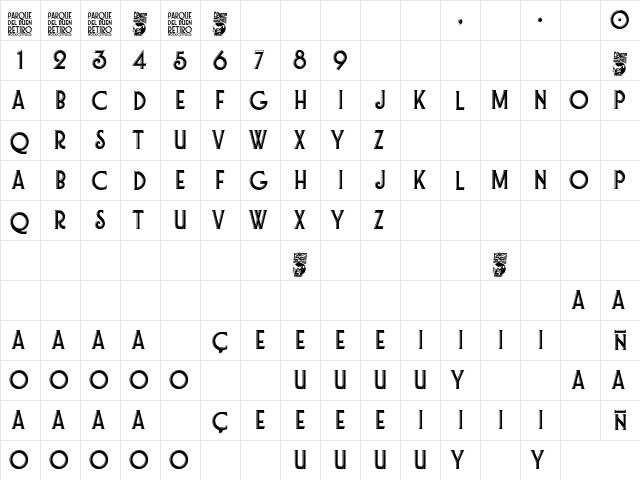
Parque del Buen Retiro Regular
| Designer | Woodcutter Manero |
Design Context for Parque del Buen Retiro Typeface
Parque del Buen Retiro offers clean, dependable letterforms without strong stylistic allegiance, making it a practical choice for designers who need flexibility.